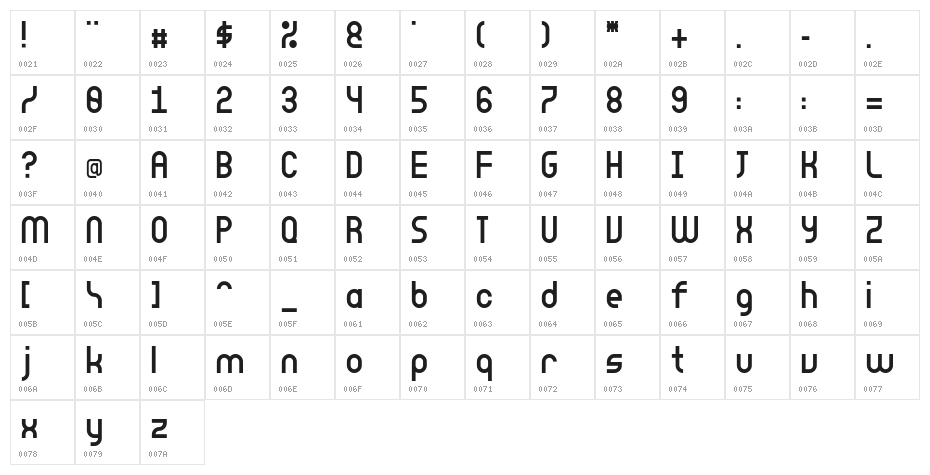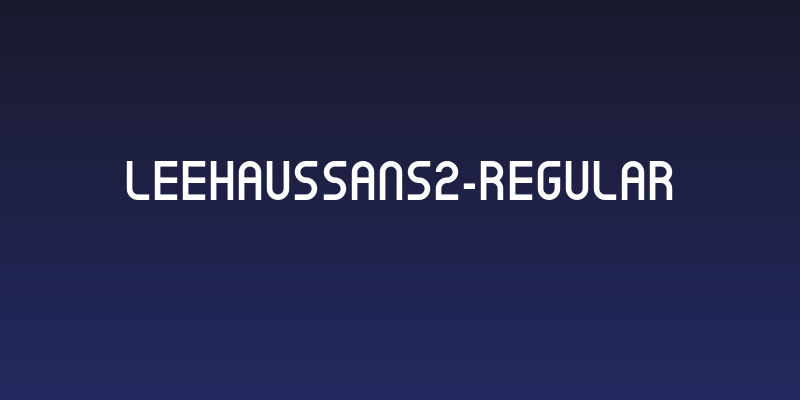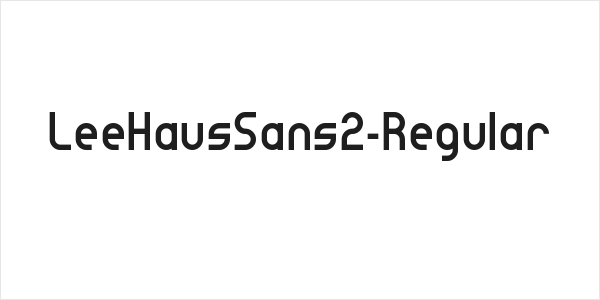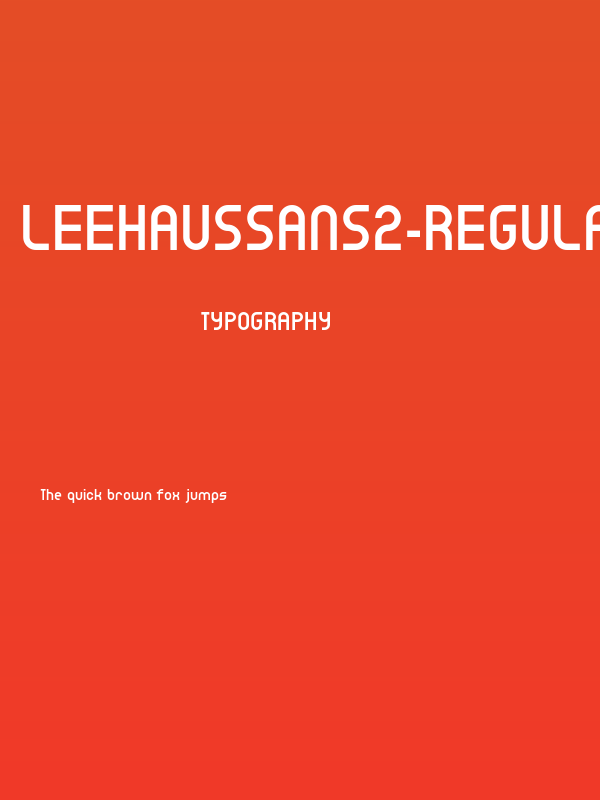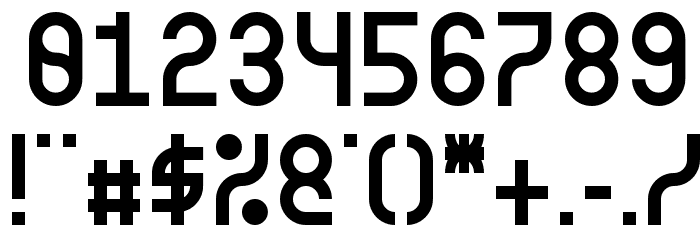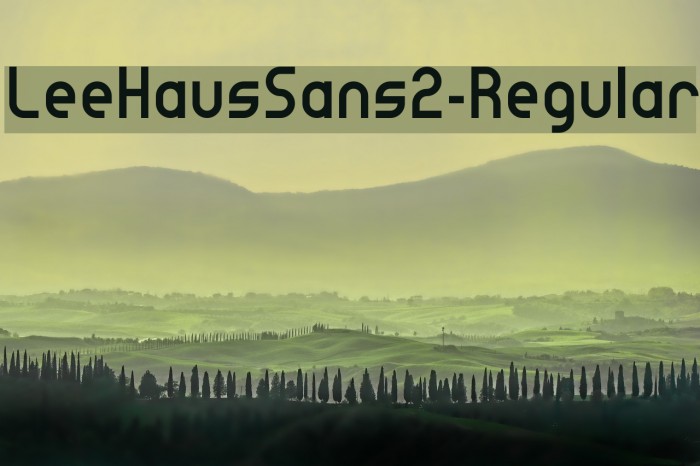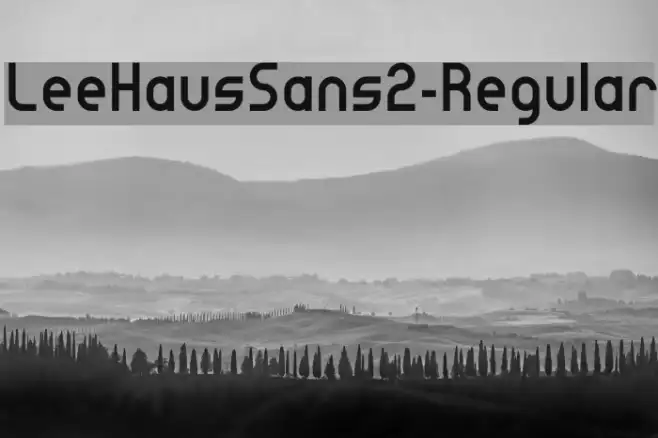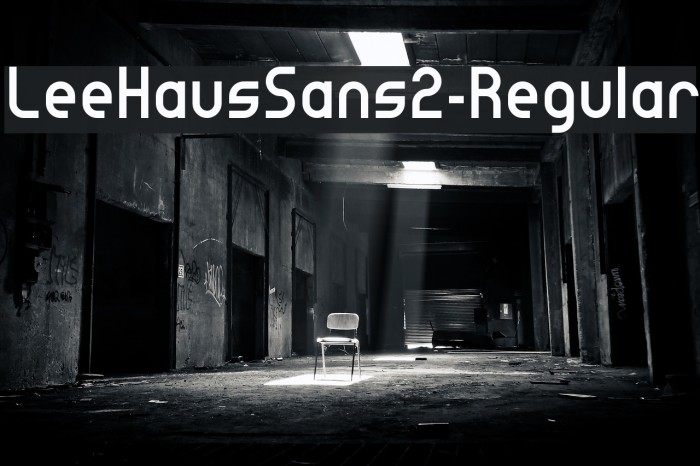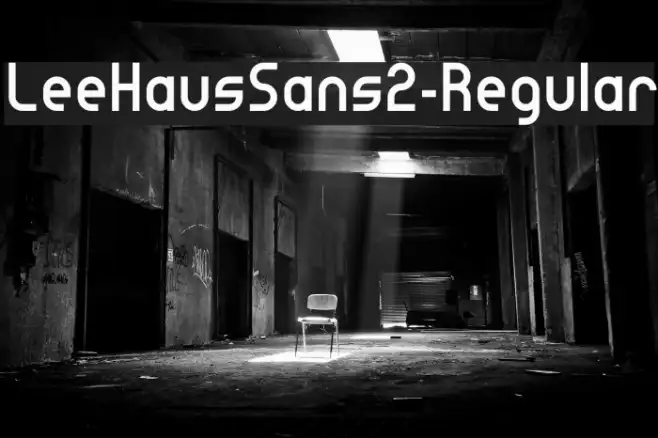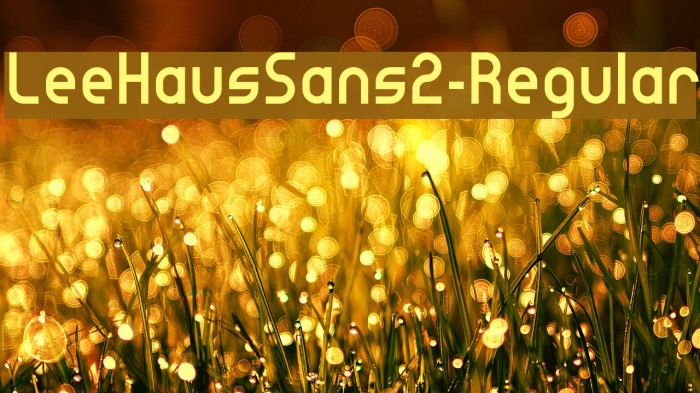
LeeHausSans2-Regular Font
LeeHausSans2-Regular Description
This font features a clean, geometric design with rounded edges, giving it a modern and approachable appearance. The characters are evenly spaced, contributing to its readability. The uppercase letters are bold and assertive, while the lowercase letters maintain a consistent style with slightly softer curves. The numerals are distinct and easy to read, making them suitable for various applications. Special characters are well-integrated, maintaining the overall aesthetic. This font is versatile, suitable for both digital and print media, and works well in a variety of contexts.